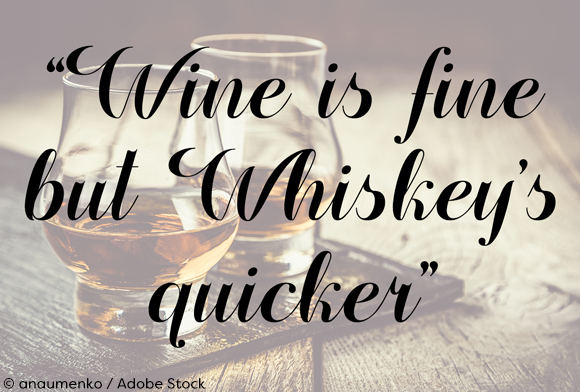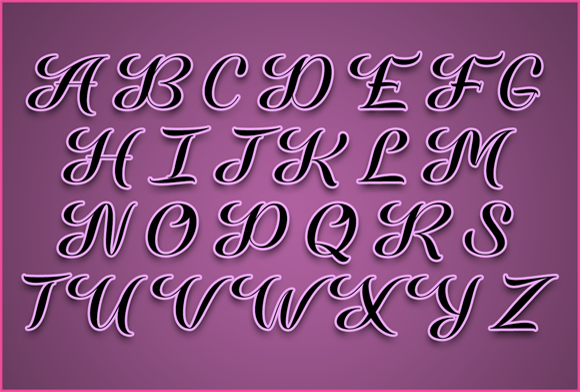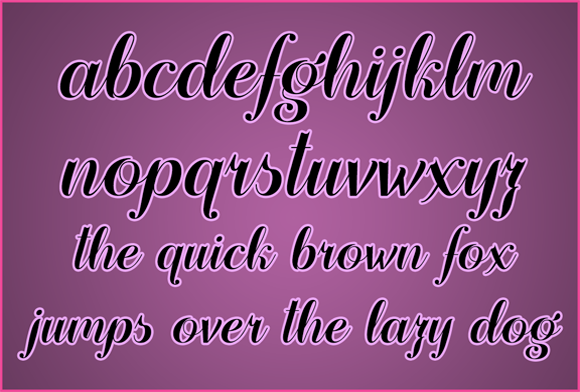
Familiar Taste of Poison Font: A Sophisticated Script to Elevate Your Designs
In the world of typography, a font can make or break a design. It’s the perfect blend of form and function, where aesthetics meet readability. For designers and crafters looking to add a touch of elegance and charm to their projects, the Familiar Taste of Poison font is a game-changer. This intoxicating script is designed to captivate audiences and leave a lasting impression.
The Allure of Familiar Taste of Poison Font
Familiar Taste of Poison is more than just a font – it’s an experience. With its unique blend of classic and modern elements, this script is perfect for those who want to add a touch of sophistication to their designs. Whether you’re working on a branding project, a wedding invitation, or a packaging design, this font is sure to impress.
The font’s design is characterized by its flowing curves, intricate details, and elegant lines. Each letter is carefully crafted to create a sense of luxury and refinement, making it perfect for high-end designs. The font’s versatility is also one of its standout features, allowing you to use it for a wide range of projects, from digital designs to print materials.
Key Features of Familiar Taste of Poison Font
• Unique and Elegant Design: The font’s sophisticated design makes it perfect for high-end designs, adding a touch of luxury and refinement to your projects.
• Highly Versatile: The font is suitable for a wide range of projects, including branding, packaging, wedding invitations, and more.
• Easy to Read: Despite its intricate design, the font is highly readable, making it perfect for body text and headings.
Here are some tips for getting the most out of the Familiar Taste of Poison font:
• Pair it with a Sans-Serif Font: Pairing the Familiar Taste of Poison font with a sans-serif font creates a beautiful contrast that adds visual interest to your designs.
• Experiment with Different Sizes: The font looks great in a variety of sizes, from large headings to smaller body text.
• Add a Pop of Color: The font looks great in a range of colors, so don’t be afraid to experiment and add a pop of color to your designs.
Who Can Benefit from Familiar Taste of Poison Font?
The Familiar Taste of Poison font is perfect for a wide range of designers and crafters, including:
• Graphic Designers: The font is perfect for graphic designers looking to add a touch of elegance and sophistication to their designs.
• Wedding Designers: The font is perfect for wedding designers looking to create beautiful and unique wedding invitations and stationery.
• Packaging Designers: The font is perfect for packaging designers looking to create luxurious and high-end packaging designs.
• Crafters: The font is perfect for crafters looking to add a touch of elegance and charm to their DIY projects.
In conclusion, the Familiar Taste of Poison font is a sophisticated script that can elevate your designs to the next level. With its unique blend of classic and modern elements, this font is perfect for designers and crafters looking to add a touch of elegance and charm to their projects. Whether you’re working on a branding project, a wedding invitation, or a packaging design, this font is sure to impress.